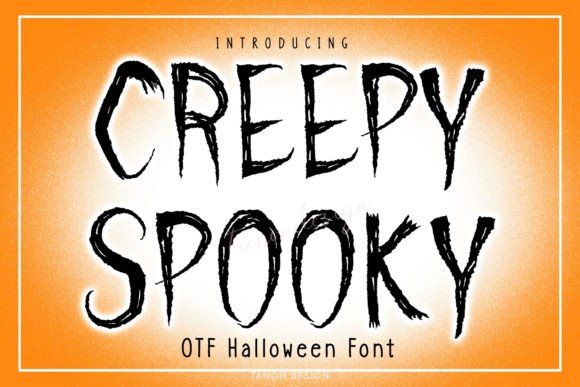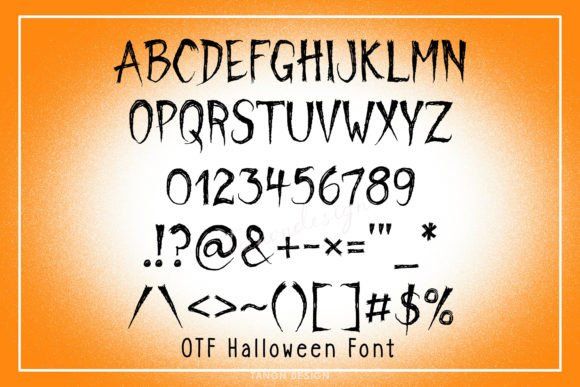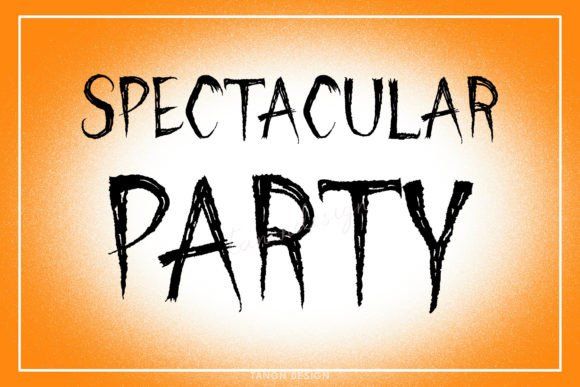
A good Halloween fonts bundle for haunted house signs needs more than creepy letterforms. The text still has to tell visitors where to enter, which hallway to follow, and which door they probably should not open.
That balance between atmosphere and readability shaped this list. I looked for fonts with enough personality to support haunted-house themes, but I also considered letter width, interior spacing, edge complexity, format compatibility, and how each style might behave on wood, foam board, posters, or cut vinyl.
Some of these products contain several typefaces. Others are individual display fonts that fill a specific gap inside a practical Halloween font collection. Together, they cover entrance signs, warning boards, room labels, party decor, photo areas, and directional arrows.
- Best overall bundle: Spooky Handwritten Fonts Bundle
- Best for adult haunted attractions: Gothic Horror Bundle
- Best for cut-vinyl warnings: Creepy Spooky
- Best family-friendly cutting option: Happy Halloween Bundle
- Best for colorful printed signs: Spooky Halloween Bundle
Best Halloween Fonts for Main Entrance Signs
Your entrance sign carries the biggest typographic burden. It needs to establish the mood immediately while remaining recognizable to guests approaching from a driveway, sidewalk, ticket line, or dim parking area.
1. Spooky Handwritten Fonts Bundle
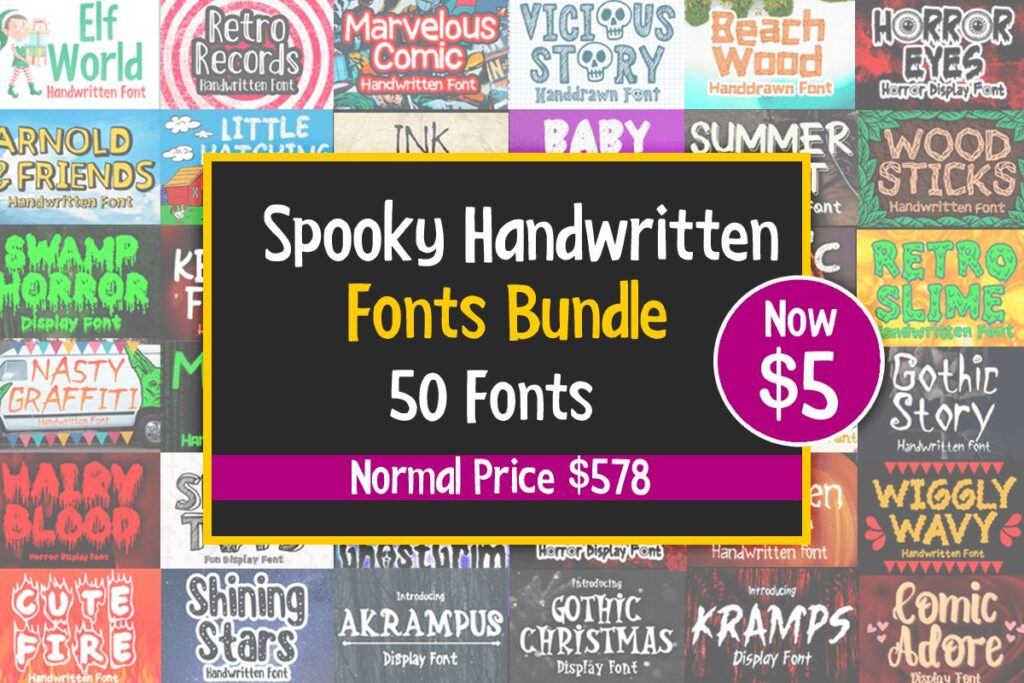
The handwritten direction gives you plenty of options for rough welcome boards, witch-themed labels, potion-shop signs, and secondary messages. I would still reserve the most irregular styles for short phrases. For a main entrance, choose one of the heavier fonts and give the letters generous spacing.
Best for: Multi-sign displays, themed rooms, coordinated party decor
Key features: 50-font collection, handwritten styles, broad visual variety
2. Horror & Display Font Bundle
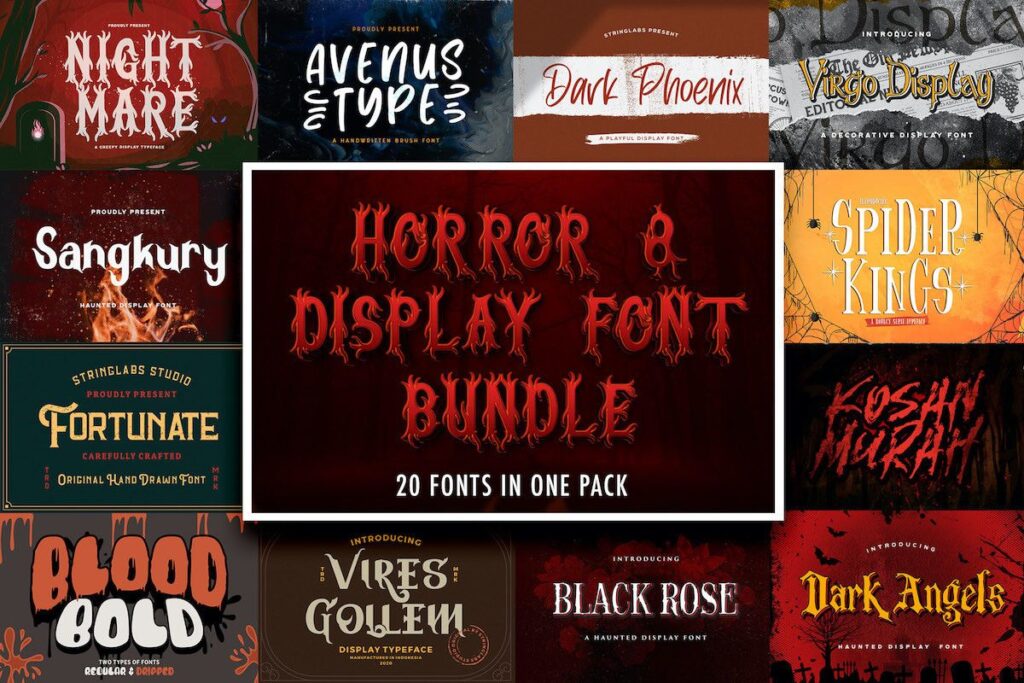
This 20-font set is a practical option when you need several different scare zones to feel related without using the exact same lettering everywhere. Its included styles range from distressed and bloody lettering to gothic and decorative faces.
Names such as Nightmare, Spider King, Blood Bold, Dark Angels, and Dark Phoenix hint at the range inside. My take: use the boldest, least fragmented design for the attraction name, then save the sharper or more distressed fonts for room titles.
Best for: Large haunted attractions, scare-zone branding, poster series
Key features: 20 fonts, horror and gothic styles, multiple display personalities
3. Gothic Horror Bundle
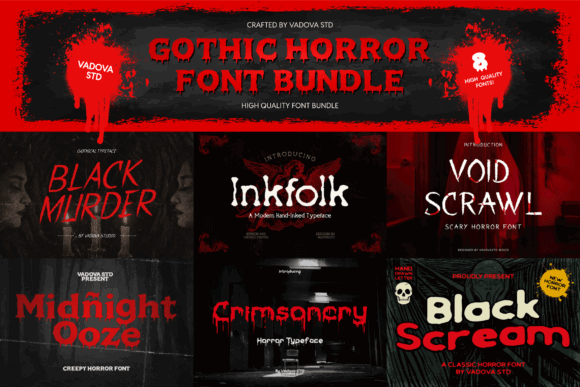
The Gothic Horror Bundle leans darker and more cinematic. Its letterforms include rough textures, dripping details, gothic construction, and visibly distorted shapes. The product is positioned for display work and lists compatibility with major desktop systems and Cricut.
I like this direction for an adult haunted-house entrance, especially when the set design includes old stone, ruined church details, Victorian architecture, or decaying wood. Keep the attraction name large so the distressed edges do not swallow the counters inside letters such as A, O, P, and R.
Best for: Gothic mansions, horror attractions, cemetery entrances
Key features: Distressed textures, dripping details, dramatic display forms
4. Halloween Fonts Bundle
This collection is aimed at broad spooky-season design work, including invitations, T-shirts, stickers, cards, posters, and digital products.
That general-purpose range makes it useful for a home haunt or party where the entrance sign must coordinate with smaller printed pieces. I would pick one substantial font for the main heading and use a simpler companion for details such as dates, hours, admission notes, or age recommendations.
Best for: Coordinated events, entry posters, matching merchandise
Key features: Multiple Halloween styles, print-friendly applications, flexible seasonal use
Best Fonts for Warning and Directional Signs
Warning signs are not the place for a seven-word line in an ultra-distorted font. Guests may be moving quickly, looking through fog, or reading under red and purple lighting. These picks bring texture without completely abandoning recognizable letter shapes.
There is no single correct size because the viewing distance and sign dimensions matter. Make the main word as large as the layout allows, test-print the text on paper, and view it from the same distance guests will see the finished sign.
Are dripping fonts good for directional signs?
They can be, but only for very short messages. Words such as โEnter,โ โExit,โ or โRunโ can handle decorative drips. Longer directions need simpler letters, cleaner baselines, and wider spacing.